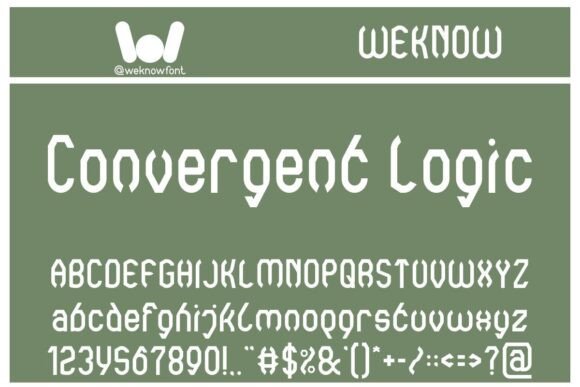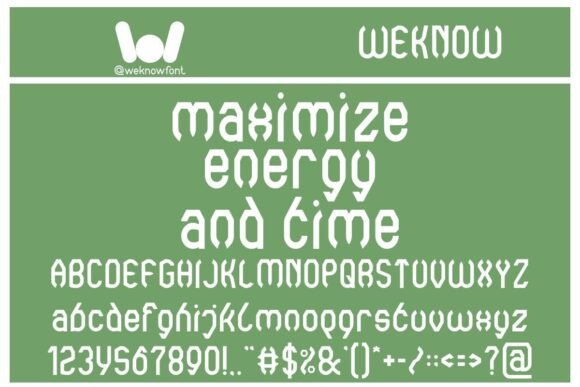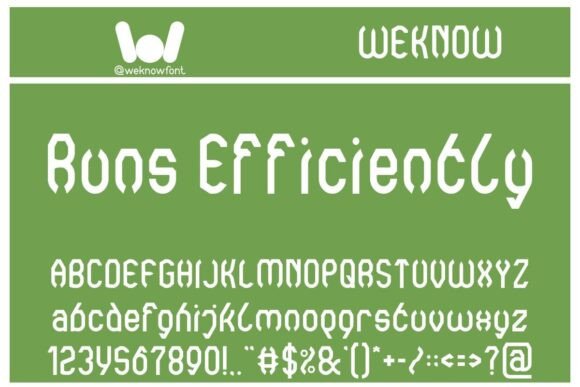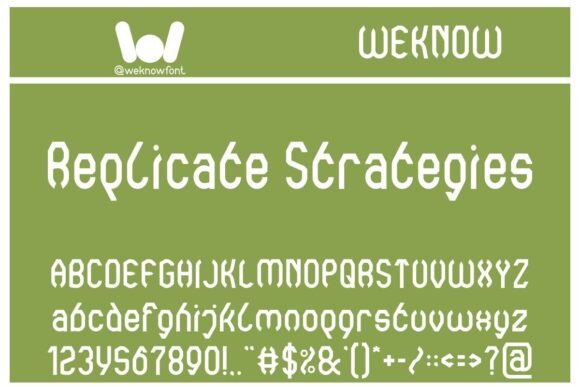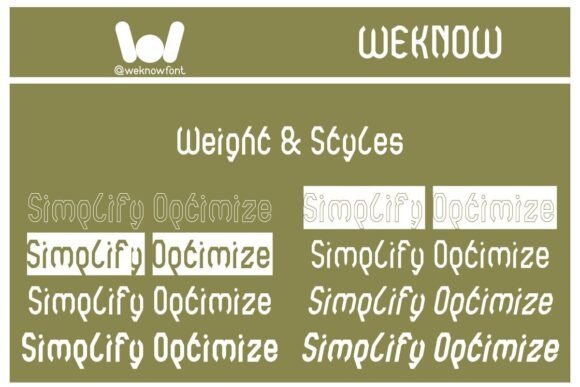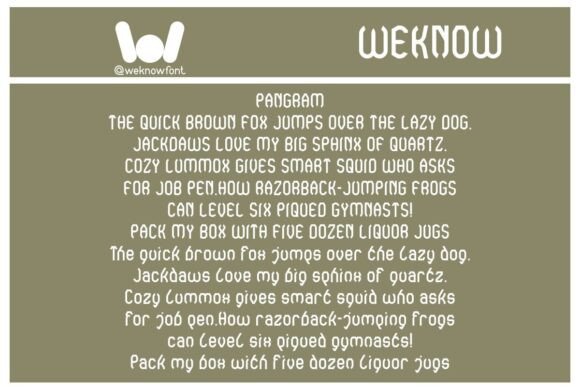
Introduction to Simplify Optimize Font
You know that moment when you’re working on a design project and you just can’t seem to find the perfect font to bring it all together? The words are stuck, the ideas are flowing, but that one crucial element is missing. That’s where the Simplify Optimize Font comes in – a game-changing design resource that will take your creative project to the next level.
With its unique modularity and cyberpunk aesthetic, this display font is perfect for designers looking to add a futuristic flair to their work. Whether you’re creating a bold headline, designing a corporate identity, or crafting a striking brand design, Simplify Optimize Font is the perfect choice. And the best part? It’s available for free download, making it an accessible design resource for designers of all levels.
So why is Simplify Optimize Font so valuable for designers? For starters, its high-quality design and transparent background make it easy to work with, even for complex projects. Plus, its unique persona adds an extra layer of creativity to any design, setting it apart from more generic fonts. With Simplify Optimize Font, you’ll be able to create designs that truly stand out and captivate your audience.
Key Features of Simplify Optimize Font
- High-Quality Typography: Simplify Optimize Font offers a range of stylish fonts perfect for creative projects that require a touch of sophistication.
- Transparent Background: The font’s transparent background allows for seamless integration with any design, giving you the freedom to create unique and captivating visuals.
- Optimized for High-Resolution Displays: With a resolution of up to 300 DPI, this font is perfect for printing and digital applications, guaranteeing crisp and clear text.
- Endless Design Possibilities: Simplify Optimize Font is a versatile design resource that can be used for a wide range of creative projects, from logos and branding to web design and editorial content.
Honest Review: Simplify Optimize Font
I recently stumbled upon the Simplify Optimize Font and I’m excited to share my thoughts on this design resource. As a designer, I’m always on the lookout for high-quality fonts that can elevate my creative projects.
- ✨ The Simplify Optimize Font has a beautiful, modern design that’s perfect for creating a sleek and professional look.
- ✨ The transparent background option allows for seamless integration with images and backgrounds.
- ⚠️ The font is not available in as many languages as I’d like, which may limit its use in international projects.
- ⚠️ The font may not be suitable for very large text sizes, as it can become difficult to read.
Overall, I’m impressed with the Simplify Optimize Font. It’s a great addition to any designer’s toolkit and can be used to create a wide range of high-quality designs. While it may have some limitations, it’s definitely worth checking out – especially considering it’s available for free download!
Simplify Optimize Font
Use the Simplify Optimize Font in conjunction with other design elements to create a cohesive and visually appealing design. Experiment with different font sizes, styles, and colors to achieve the desired effect.
The Simplify Optimize Font is suitable for various creative projects, including graphic design, digital marketing, and branding. It’s also ideal for creating presentations, documents, and social media graphics.